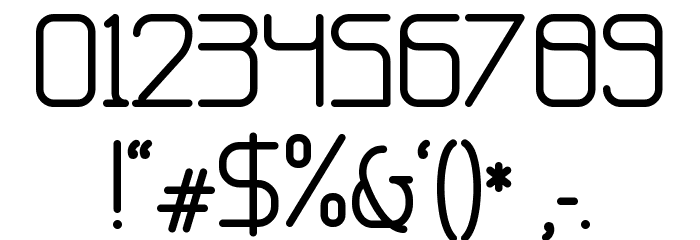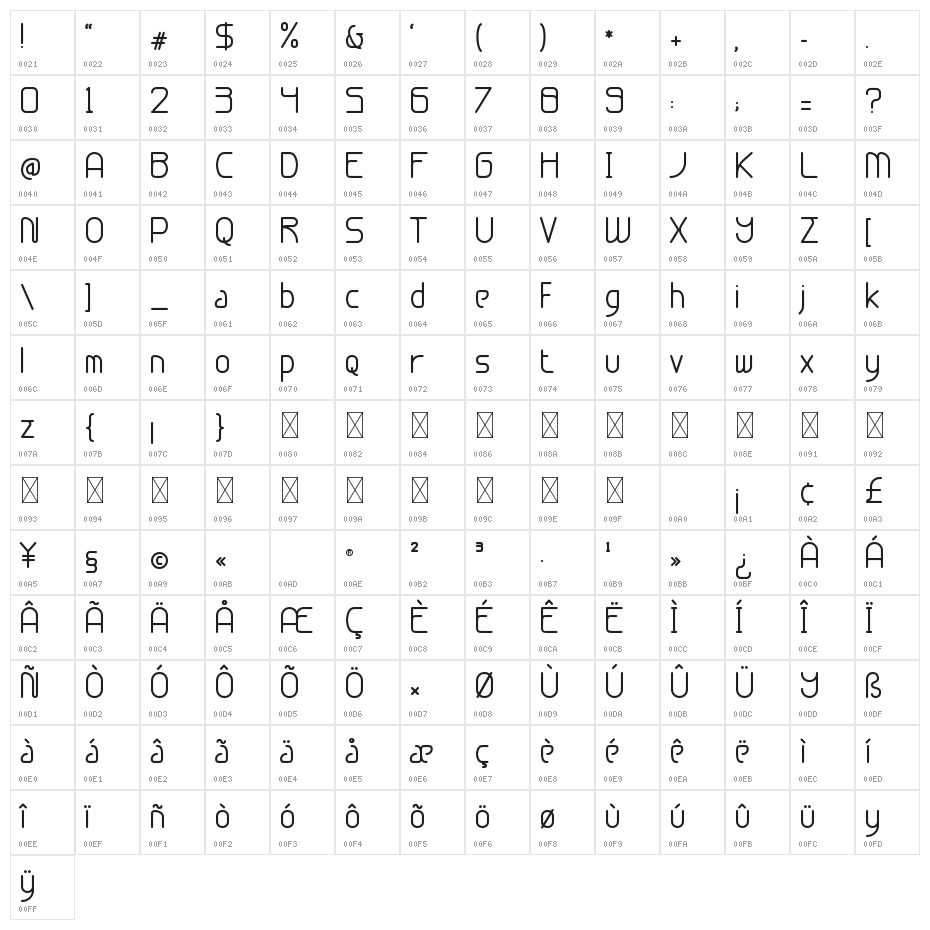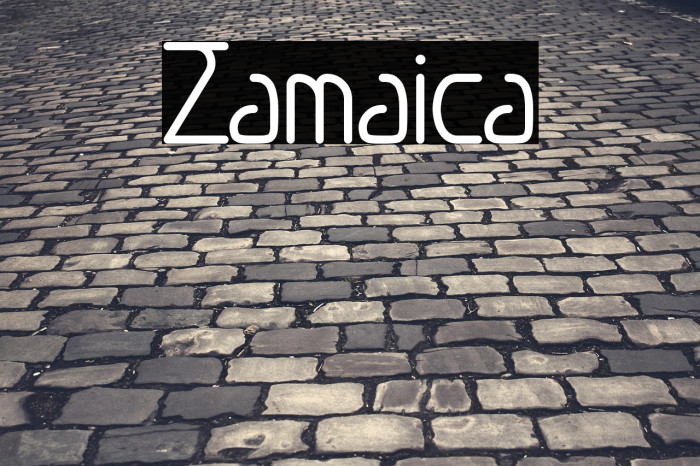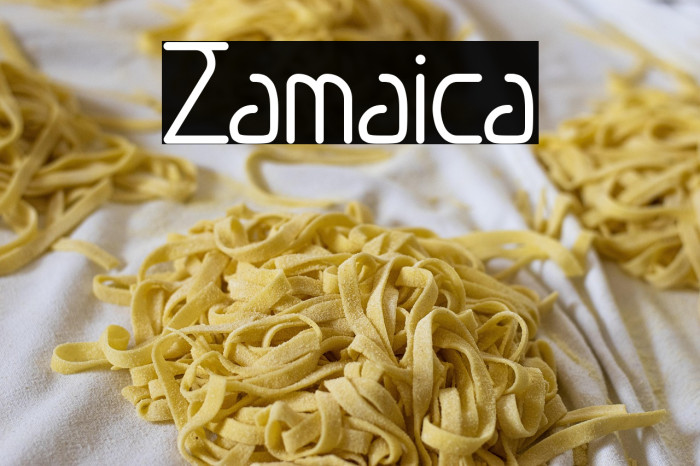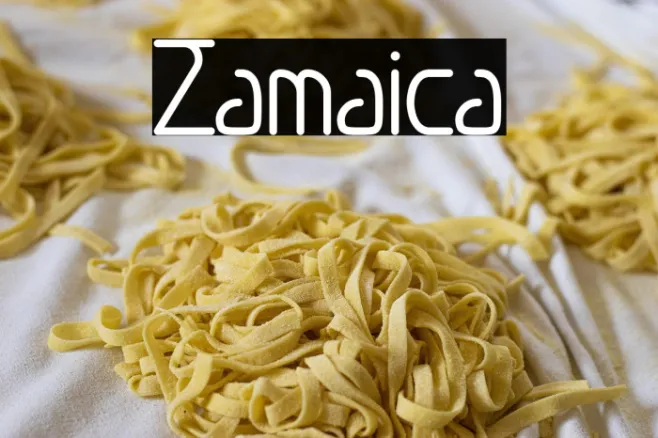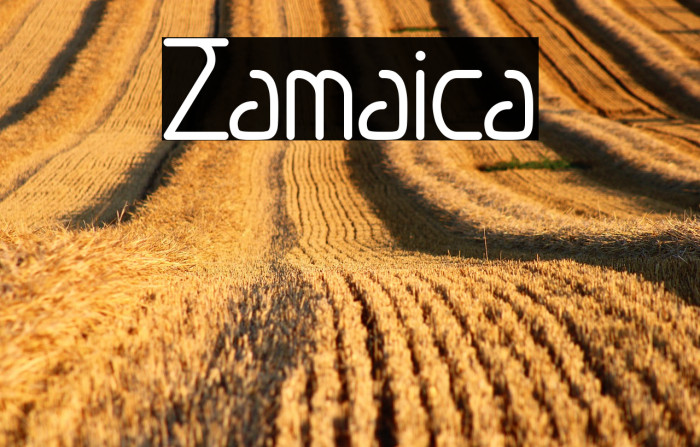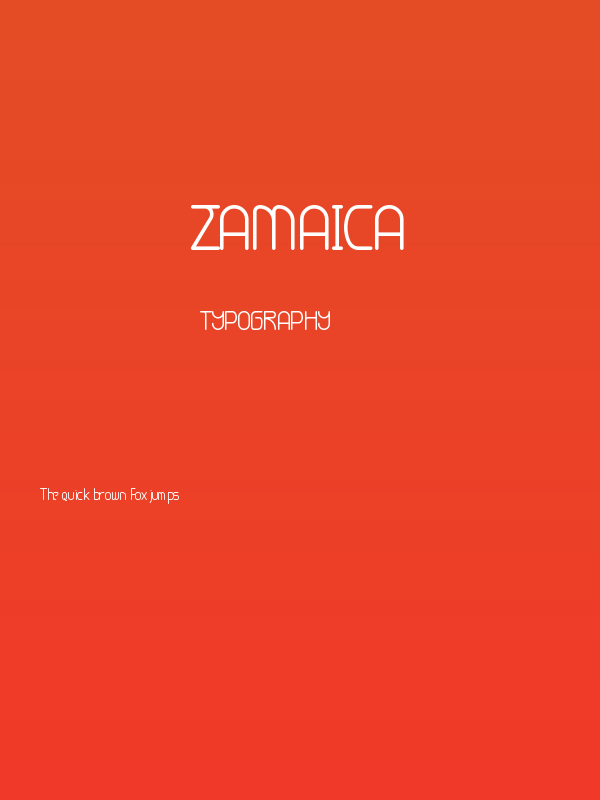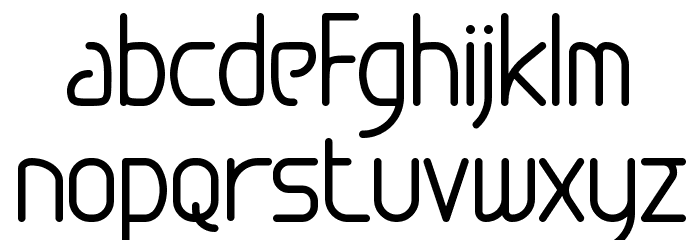
Zamaica Font
Zamaica Description
This font features a modern, geometric design with rounded edges and a clean, streamlined appearance. The characters are uniform in width, giving it a monospaced feel, although it is not strictly monospaced. The uppercase letters are tall and slightly condensed, while the lowercase letters maintain a consistent height, creating a harmonious balance. The numerals are clear and legible, matching the overall style of the alphabet. Special characters are designed with the same rounded, minimalist aesthetic, making the font versatile for various applications.
| Use Case | Logos, Headlines, Digital Interfaces |
| Proposed Projects | Ideal for tech branding, modern web design, digital interfaces, and minimalist posters. |